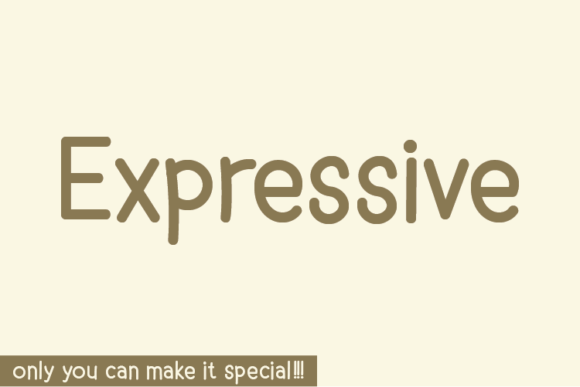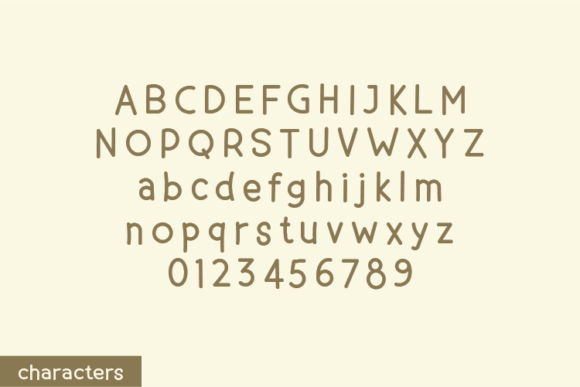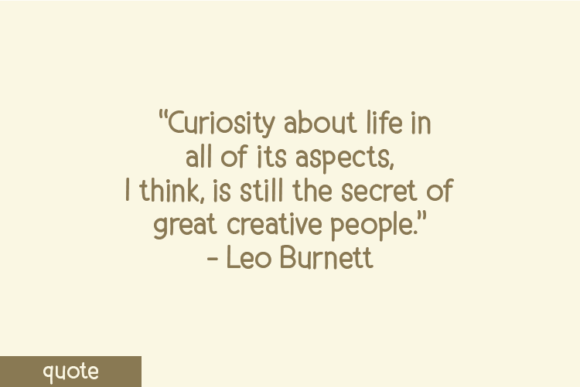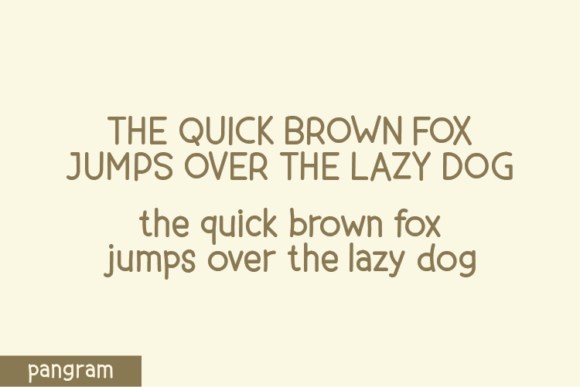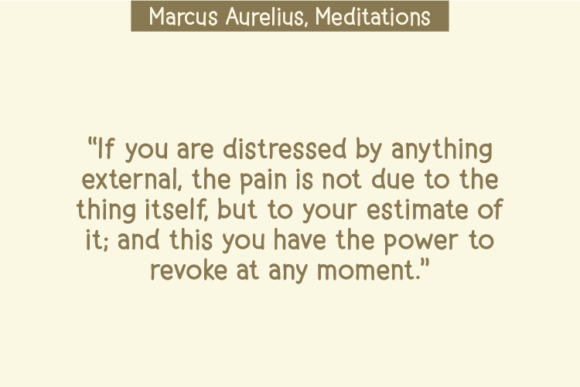
About Expressive Font
The Expressive Font Download is a natural handwritten typeface created with authenticity at its core. Unlike fonts that undergo heavy refinements, Expressive was designed without changing a single node in each character’s indentation. This decision preserves its organic flow and raw rhythm, making it visually unique and genuinely handcrafted.
Thanks to its natural strokes, Expressive adds charm, creativity, and individuality to every design. It feels casual and personal, while still maintaining strong readability, which makes it suitable for a wide range of projects. You can use it for quotes, notes, apparel, posters, product packaging, social media graphics, and stationery. No matter the application, Expressive brings originality and warmth.
Features of Expressive Font
When you download the Expressive Font, you’ll enjoy features that enhance both design flexibility and usability:
Authentic handwritten style with organic, raw strokes
Original creation method without altered nodes
Full character set including uppercase, lowercase, punctuation, and numerals
Readable yet artistic appearance that balances style and clarity
Versatility across print, apparel, and digital designs
Best Uses for Expressive Font
The Expressive Font Download works beautifully in many creative contexts. For example, it enhances motivational quotes on social media, giving text a personal touch. It also stands out on t-shirts, tote bags, and hoodies, making merchandise designs feel unique and handcrafted.
In addition, Expressive adds a warm feel to greeting cards, invitations, planners, and journals, where a handwritten look creates intimacy. It also performs well in product packaging and labels, particularly for handmade or eco-conscious brands. Furthermore, it strengthens logos and branding projects, giving them an approachable, distinctive personality. Finally, it brings impact to posters, flyers, and event materials, where authenticity and creativity help capture attention.
Why Choose Expressive Font
Designers prefer the Expressive Font Download because it celebrates authenticity and creativity. By leaving every indentation untouched, it keeps the raw beauty of handwriting alive. This choice allows your designs to feel personal and relatable, unlike polished typefaces that may appear too mechanical.
Unlike many handwritten fonts, Expressive combines creativity, originality, and readability. It is casual enough for personal work but professional enough for branding and product packaging. This flexibility makes it a reliable addition to any font collection.
The Expressive Font Download is a natural handwritten typeface that brings handcrafted authenticity into modern design. With its raw strokes, organic flow, and versatile usability, it is ideal for quotes, apparel, posters, packaging, stationery, and more.